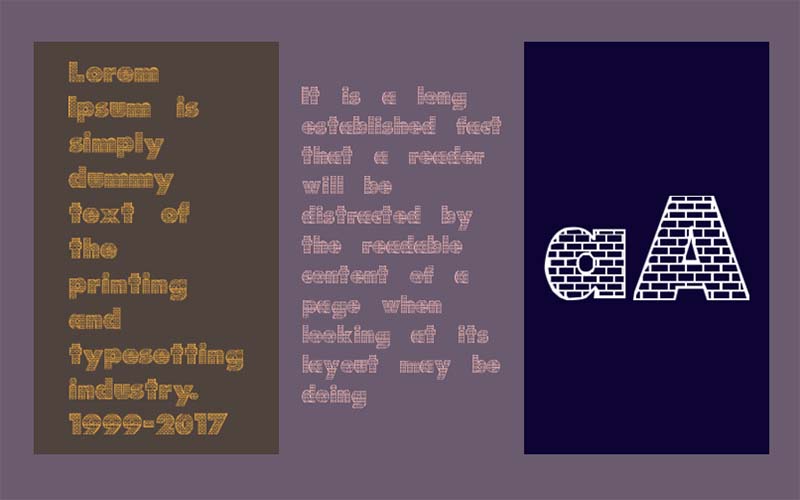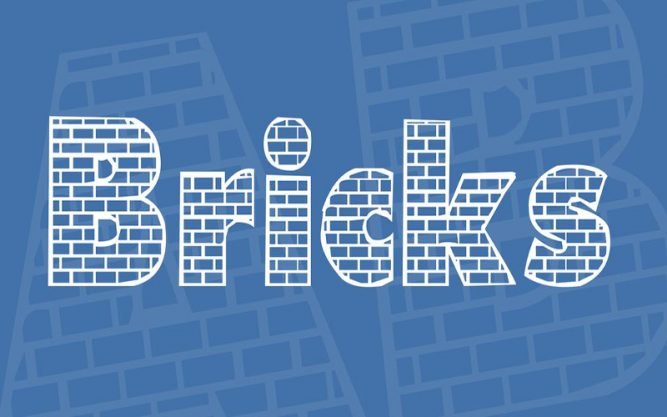
Bricks Font is a bold sans serif typeface that has a decent clean texture with a unique and cute appearance. Carol Brooksbank took charge of designing it and launching it for the first time.
It is designed with a modern sans-serif modular structure that maintains unity throughout the font family. The entire structure is handmade which works in a friendly manner.
Each letter is formed with extra bold and increased width. So, each letter offers a long look with individuality. And in some letters, he used rounds as opposed to straight lines.
While the other is inside the filling of the sentence which really creates a unique way. When you take notes on the texture, make sure it is full. For more information, you can see the picture.
With this unique look, you can create movie posters, book covers, banners, social media posters, women-related things, game graphics, unique emblems, printing on cards, product designs, t-shirt printing, and more.